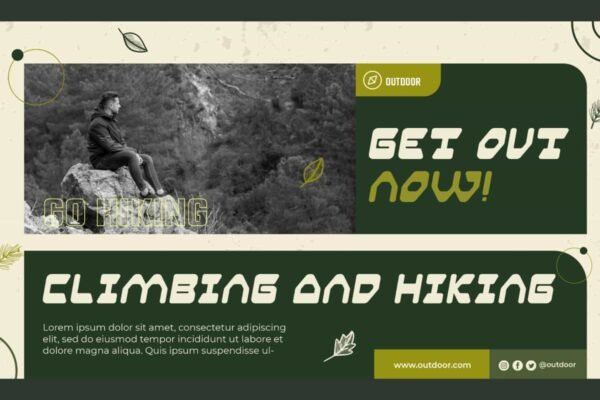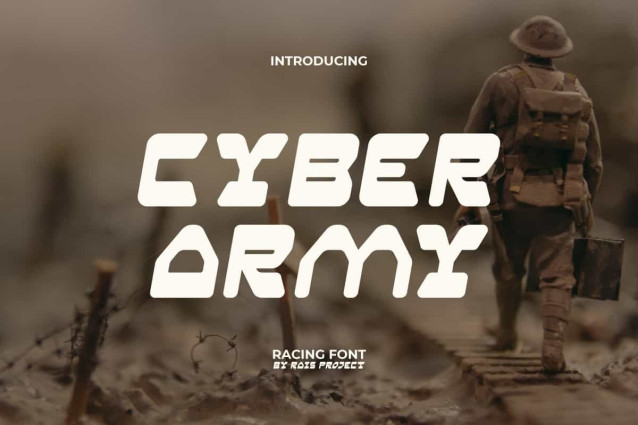
Cyber Army Font
Cyber Army Font is a unique display font inspired from several war movies. Comes with a military theme style by RaisProject. The font will be amazing for many projects! . This font has a distinctive character shape so it can display military concepts well. It will look great on custom design, label, signage, poster, invitation, poster, quotes, web, and more!
Cyber Army Font includes a full set of ALL CAPS for Uppercase and Lowercase Letters, Numerals, and large range of Punctuation. This unique font will be loved by many people and will be suitable for various industries, such as game, sports, fashion, cafe, event or festival, printing, publishing, sports, etc.